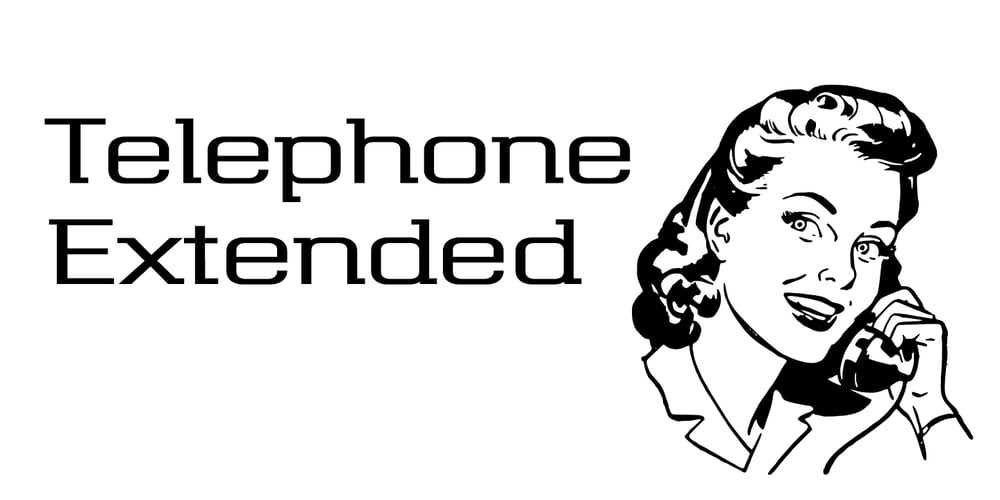
Telephone Extended
Telephone Extended font
Telephone Extended Font Family was designed by Keith Bates and published by K-Type. Telephone Extended contains 8 styles and family package options. Telephone Extended is a geometric semi-slab family with block serifs positioned to assist wordflow.The typeface evolved from an italic wordmark designed in 1966 for the British GPO by the Banks & Miles agency to publicize all-figure telephone dialling (all-number calling), and the new fonts retain that italic spirit, even in the upright romans. The squarish glyphs, with a mix of rounded and angular corners, have a post-modern feel suggesting technological advance, innovation and vitality.A normal width family, Telephone, is also available.